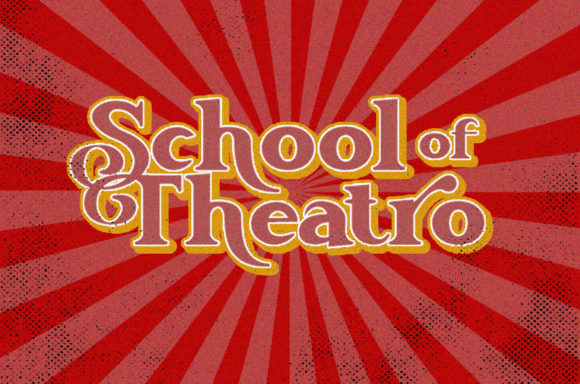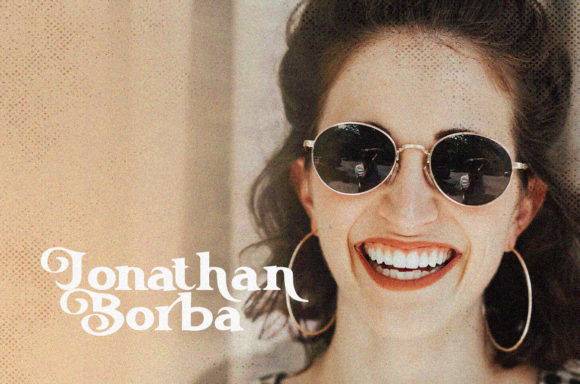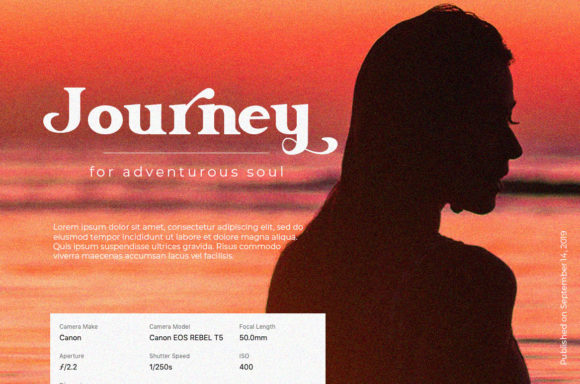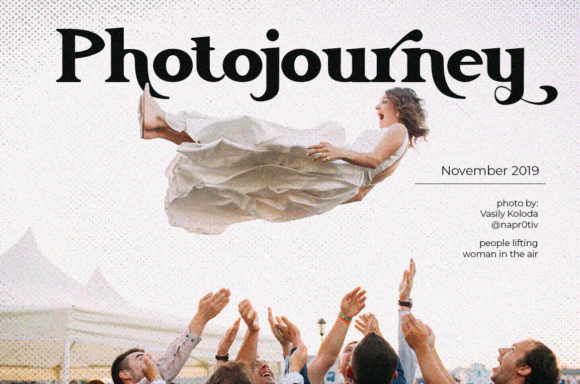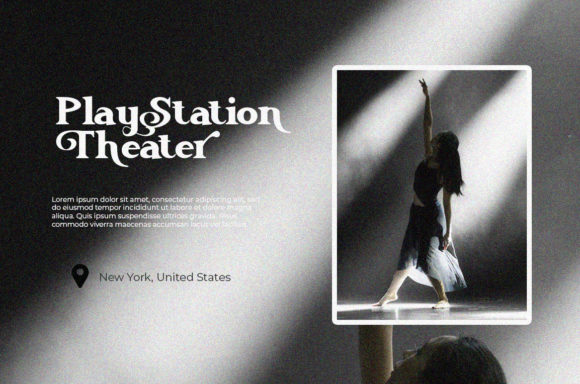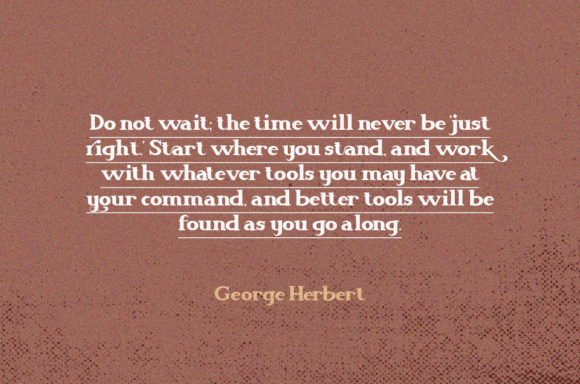
Introduction to Krisander Font
Remember that moment when you’re working on a creative project and you’re stuck on choosing the perfect font? The one that will elevate your design from ordinary to extraordinary? For designers, this is a common dilemma, but with the right font, it can be a breeze. Today, we’re excited to introduce you to Krisander Font, a high-quality serif font that’s sure to become your go-to design resource.
Krisander Font is a masterclass in simplicity and elegance, making it the perfect choice for a wide variety of designs. Whether you’re working on a personal project or a commercial one, this font is sure to bring a touch of sophistication to your work. And the best part? It’s available for a free download, making it a valuable resource for designers on a budget.
With its transparent background and versatile design, Krisander Font is a game-changer for designers looking to take their creative projects to the next level. So, what are you waiting for? Dive in and discover why Krisander Font is about to become your new favorite design companion.
Key Features of Krisander Font
- High-quality, vector-based design for a crisp and clear appearance, ideal for creative projects.
- Includes a transparent background, allowing for seamless integration into various design environments.
- Designed to be highly legible, with a unique, elegant style that sets it apart from other fonts.
- Perfect for use in digital design, print materials, and other creative projects where a high-quality font is essential.
Honest Review: Krisander Font
I recently had the chance to work with the Krisander Font, and I must say it’s a solid addition to any design resource collection. One of the things that immediately caught my attention was its clean and elegant design, making it perfect for high-quality creative projects.
Here are some of the things that work well with the Krisander Font: ✨
- High-quality design: The font’s elegant and clean design makes it perfect for use in creative projects.
- Transparent background: This makes it easy to use in various design scenarios without any background clutter.
However, I did encounter a few limitations with the Krisander Font: ⚠️
- Limited font styles: Compared to other fonts, the Krisander Font has a relatively limited number of font styles.
- No bold or italic variations: While the font’s elegance is a major selling point, the lack of bold and italic variations can be limiting in certain design scenarios.
Overall, I’d say the Krisander Font is a solid choice for designers looking for a high-quality, elegant font for their creative projects. Its free download and transparent background make it a convenient addition to any design resource collection. However, its limited font styles and lack of bold and italic variations may be a drawback for some users.
Krisander Font
The Krisander Font is a high-quality design resource ideal for creative projects. It’s available for free download, making it a great addition to your design arsenal. The font features a transparent background, allowing for seamless integration into various design projects.
In PowerPoint or Word, you can use the Krisander Font to add a touch of elegance to your presentations or documents. Simply select the font from the font library and use it to create custom headings, titles, or body text.
Tips for Getting the Most Out of Krisander Font
To get the most out of Krisander Font, experiment with different font sizes, colors, and combinations. You can also use the font in conjunction with other design elements, such as graphics, images, or textures.
The Krisander Font is ideal for a variety of creative projects, including: